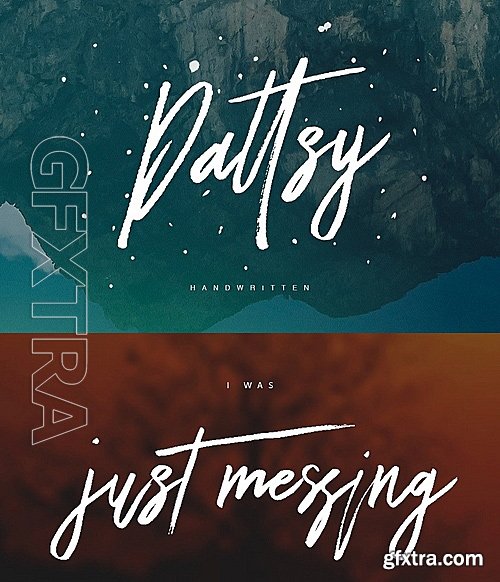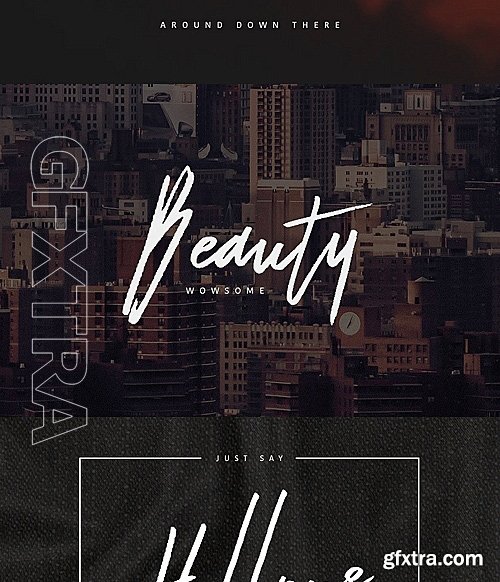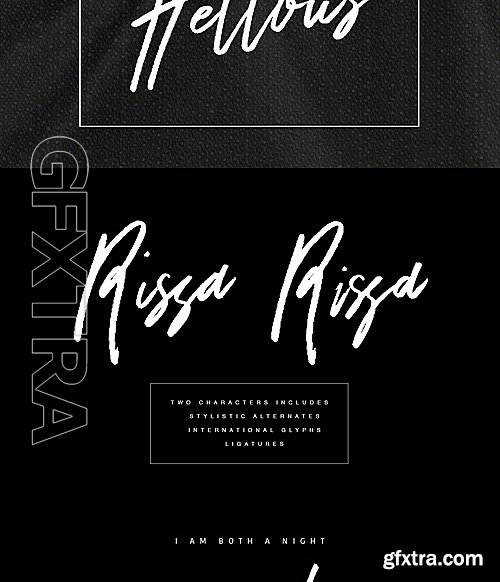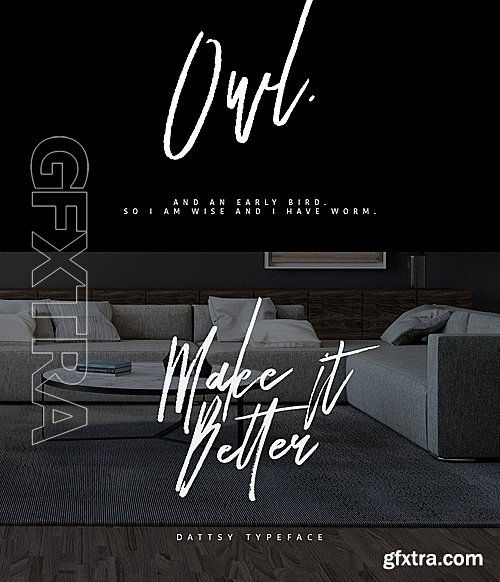
CM - Dattsy Signature Brush Font 1202502
Give your designs an authentic handcrafted feel. "Dattsy" is perfectly suited to signature, stationery, logo, typography quotes, magazine or book cover, website header, clothing, branding, packaging design and more. Included Stylistic Alternates.